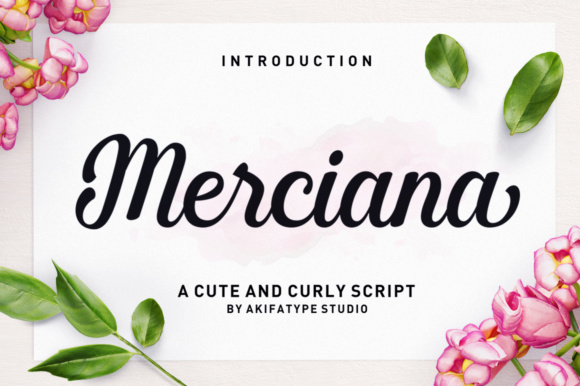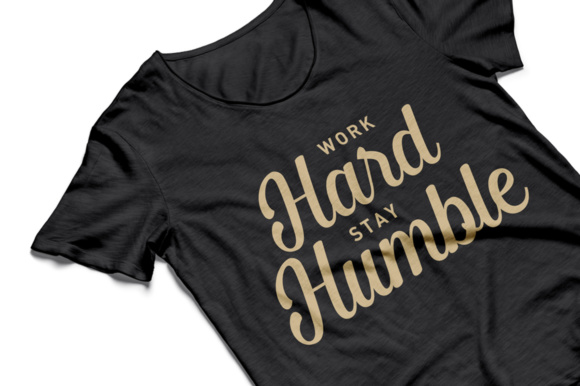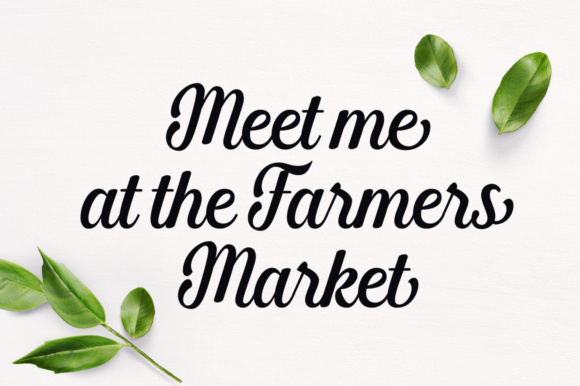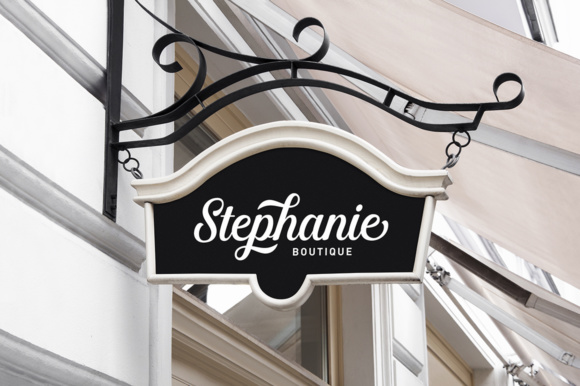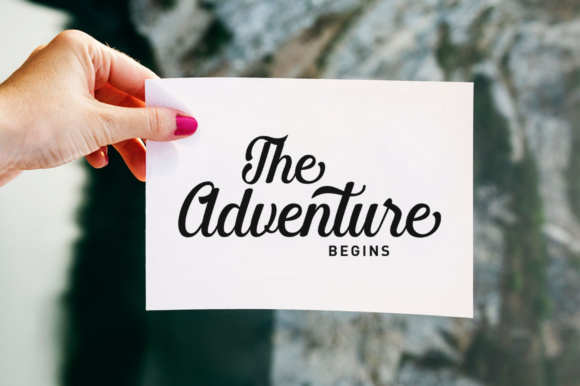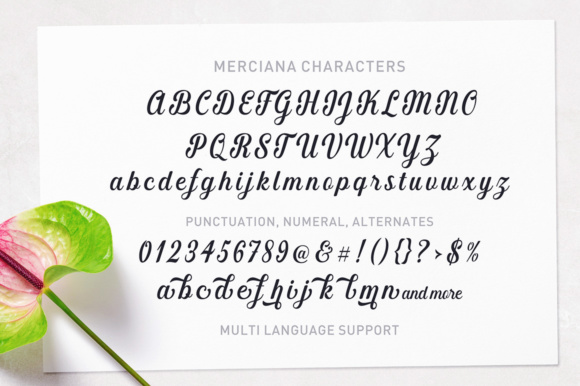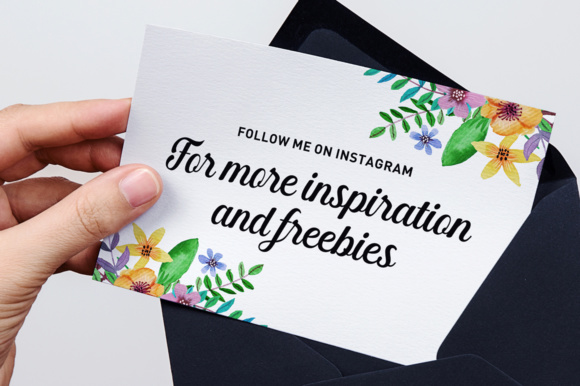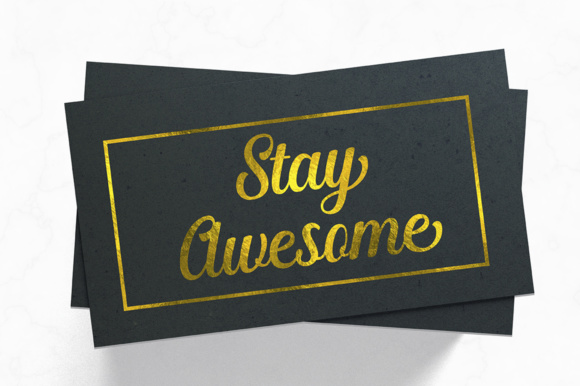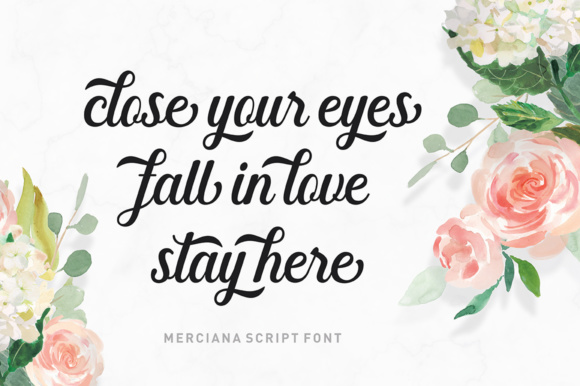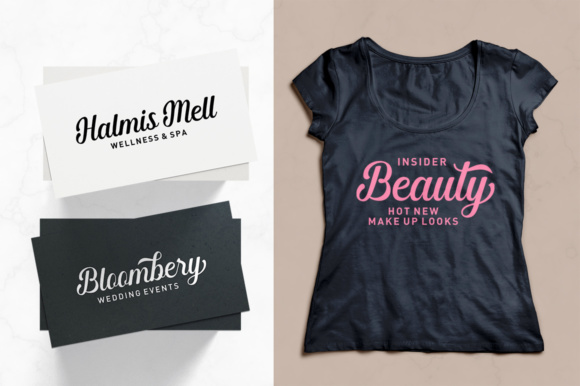
Merciana Font
About Merciana Font
Merciana is a beautifully legible script font, ideal for use in a wide range of projects. This font is a great way to add a vintage yet clean style to your works.